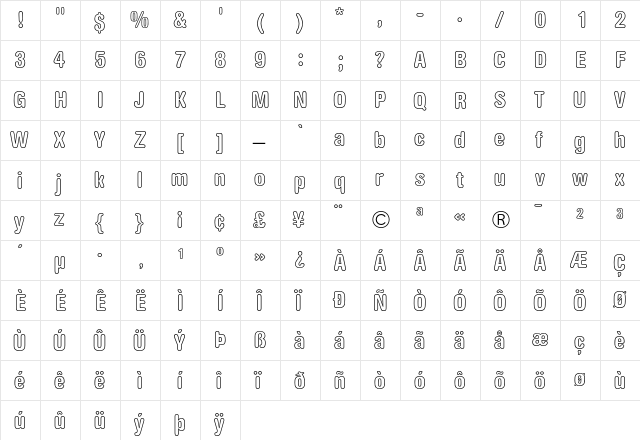
AG Book Rounded Bold Condensed Outline Font Preview
AG Book Rounded Bold Condensed Outline
Design Context for AG Book Rounded Typeface
AG Book Rounded brings ornamental detail and strong personality to headlines and identities, where visual impact matters more than quiet functionality. Its bold stroke weight gives it real presence on the page.
Font Pairing: Pair with a clean neutral sans-serif for body copy to let AG Book Rounded's character lead without overwhelming the composition.
Pro Tip: Use AG Book Rounded exclusively at display sizes — it was designed to be seen, not read at length. Let a neutral companion handle body copy.